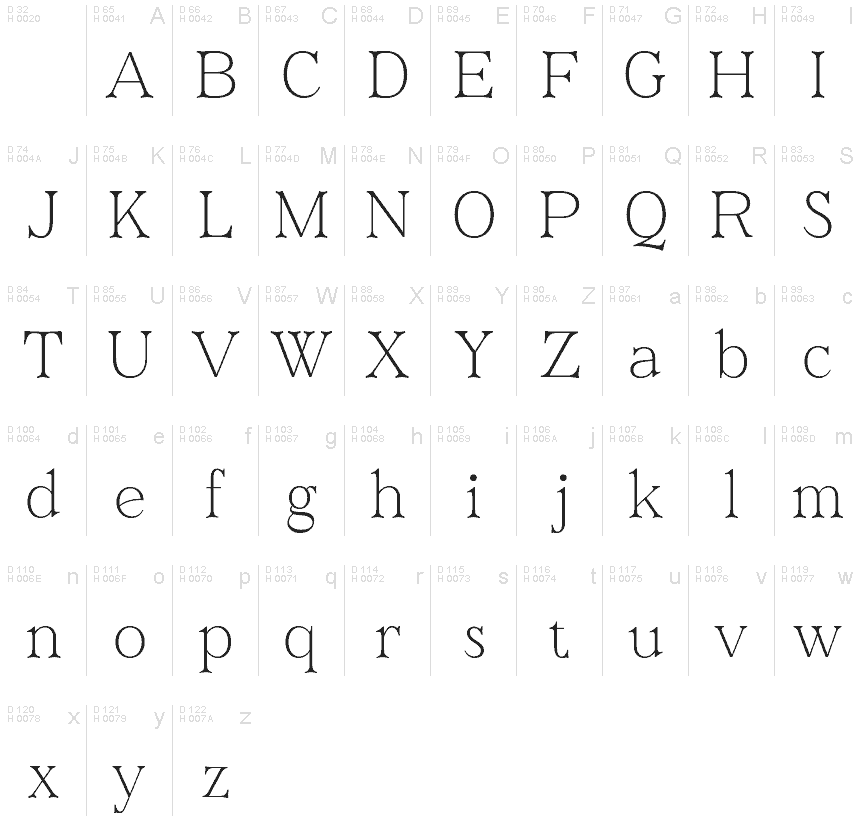
CS Richie Regular Demo
CS Richie font designed by Craft Supply Co. is free a serif font that combines elegance, sophistication, and classic influence, for a formal tone of voice. With subtle detailing, this balanced and high-legibility resource presents just the tool to make your texts a vision both online and in print.
Use it for advertisements for all businesses or create modern blog posts with trending deal announcements. Upgrade magazine headers and subheaders to give titles their deserved attention. Combine CS Richie with decorative designs on book titles or even the establishments’ names on business cards.